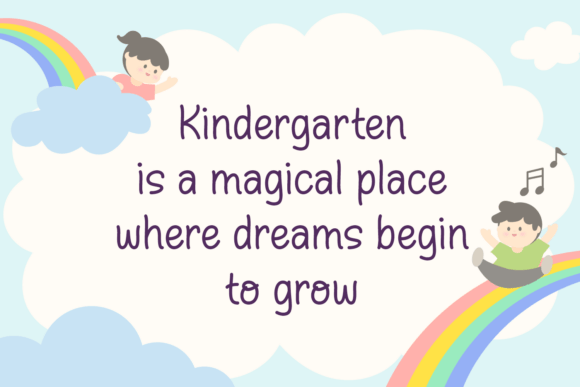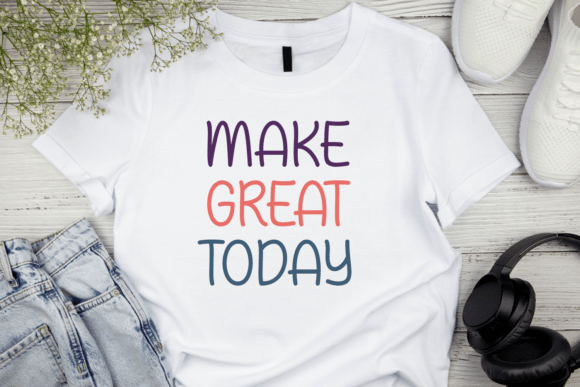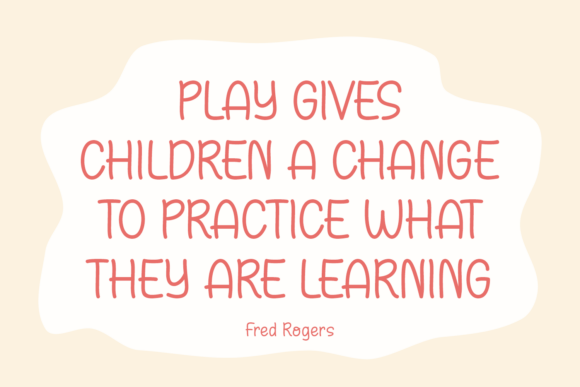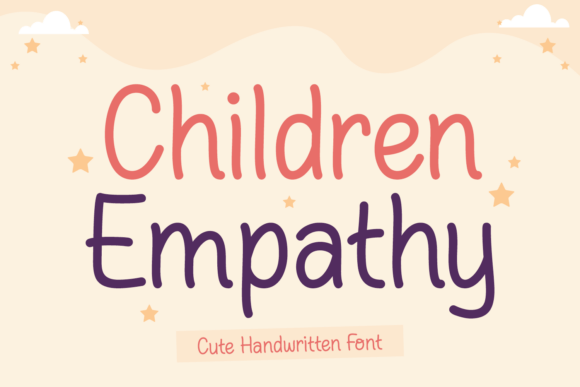
Introducing Children Empathy Font: A Symbol of Kindness and Compassion
In a world where empathy and understanding are more crucial than ever, the way we communicate with children plays a significant role in shaping their young minds. Typography, often overlooked, is a powerful tool in conveying messages of warmth, compassion, and kindness. This is where the Children Empathy Font comes into play, a delightful handwritten font designed to embody the innocence, joy, and purity of childhood.
The Essence of Children Empathy Font
Children Empathy Font is more than just a typeface; it’s a movement. Its creation stems from the desire to inspire a sense of belonging, inclusivity, and kindness among children and adults alike. This font is characterized by its friendly, approachable, and whimsical style, making it an ideal choice for projects aimed at spreading positivity and joy.
One of the standout features of the Children Empathy Font is its versatility. Whether you’re working on a children’s book, designing educational posters, crafting branding for a non-profit organization, or creating decor for a nursery, this font fits seamlessly into any project. Its adaptability makes it a go-to choice for designers and crafters looking to infuse their work with a sense of warmth and compassion.
Applications of Children Empathy Font
• Children’s Book Titles: Bring your story to life with a title that speaks directly to a child’s heart. The playful and innocent vibe of the Children Empathy Font makes it perfect for book covers that aim to enchant young readers.
• Educational Posters: Create engaging and informative posters that not only educate but also inspire. The friendly style of the font ensures that your message is received with openness and enthusiasm.
• Non-Profit Branding: For organizations focused on child welfare, education, and community building, the Children Empathy Font offers a typographic solution that embodies their mission. It helps in creating a brand identity that is approachable, caring, and trustworthy.
• Nursery Decor: From wall art to signage, the font’s sweet and innocent charm can transform any nursery into a warm and welcoming space. It’s an excellent choice for parents or educators looking to create a nurturing environment.
Why Choose Children Empathy Font?
Choosing the right font for your project can be daunting, given the vast options available. However, the Children Empathy Font stands out for several reasons:
• Emotional Connection: It creates an immediate emotional connection with the audience, making your message more impactful.
• Unique Appeal: Its unique, handwritten style ensures that your project stands out in a crowded marketplace.
• Easy to Read: Despite its whimsical nature, the font maintains readability, ensuring your message is easily understood by children and adults alike.
The Children Empathy Font is a powerful tool for anyone looking to spread a message of warmth, compassion, and kindness. Its design, inspired by the innocence and joy of childhood, makes it an invaluable asset for designers and crafters working on projects that aim to inspire positivity. By incorporating this font into your work, you’re not just choosing a typeface; you’re embracing a philosophy of kindness and inclusivity. Spread the message, and let’s create a more compassionate world, one project at a time.
The Children Empathy Font is more than just a typographic choice; it’s a statement of intent. It signifies a commitment to kindness, understanding, and compassion. As we navigate the complexities of the modern world, it’s clear that we need more empathy and warmth in our lives. Let’s start by choosing a font that embodies these values.